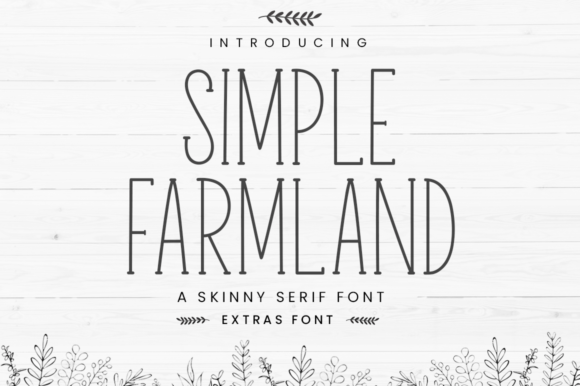
Looking for the best font for your next Cricut project? Look no further than Simple Farmland Font! Created by the talented team at Manjalistudio, this tall serif font is the perfect addition to your font collection.
Crafters, designers, and DIY enthusiasts alike will love the versatility of Simple Farmland Font. Its elegant and modern look makes it ideal for a variety of projects, including invitations, logos, birthday invitations, and more. This font family also pairs well with script fonts, allowing you to create beautiful and unique designs.
But what really sets Simple Farmland Font apart are the included doodles. Whether you're creating stickers, vinyl, or other craft projects, the doodles in this font family are the perfect addition. With a variety of designs to choose from, you'll be able to take your projects to the next level.